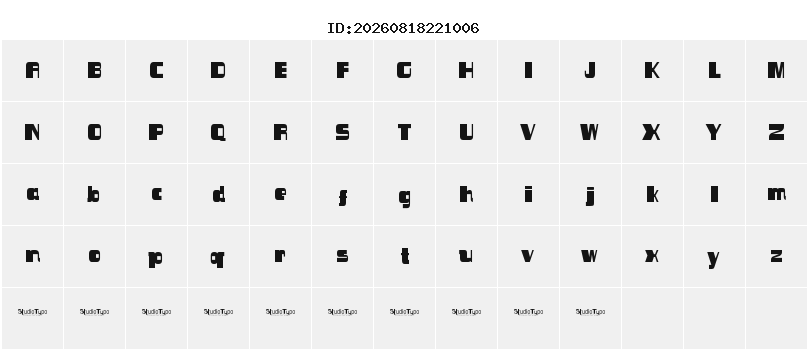
Sinema Preview
• Font Name: Sinema
• Designer: Mehmet Abaci
• Manufacturer: StudioTypo
About Sinema.otf
Sinema.otf is a modern, elegant sans-serif font designed for ultimate readability and visual harmony. Perfect for branding, headlines, web design, and print materials.